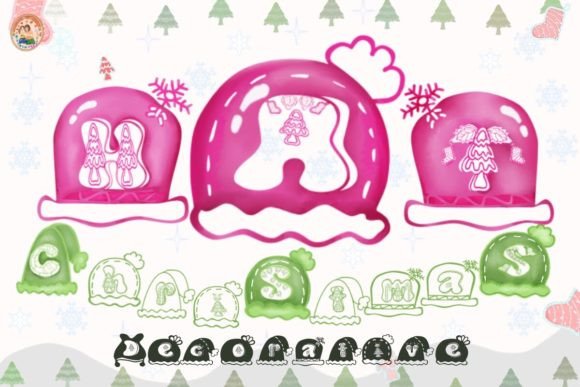
Embark on a magical journey with the Hat Christmas Font, a delightful decorative font family that captures the whimsical charm of the holiday season. Fall in love with its two captivating styles, each a stroke of artistry that brings your creative visions to life.
Immerse yourself in the vibrant world of Hat Christmas, where imagination knows no bounds. Let your creativity soar as you design enchanting invitations that radiate warmth and cheer. Picture the joy on your loved ones' faces as they receive these personalized tokens of affection. The Hat Christmas Font transforms ordinary words into captivating expressions, adding a touch of magic to every occasion.
Unleash your inner artist and craft heartfelt stationary art that speaks to the heart. The fluid lines and playful characters of the Hat Christmas Font dance across the page, creating masterpieces that evoke emotions and leave lasting impressions. Imagine your loved ones' eyes sparkling with delight as they admire your handmade cards and letters, each one a testament to your creativity and thoughtfulness.
Step into the realm of social media and captivate your audience with eye-catching posts that demand attention. Harness the power of the Hat Christmas Font to create captivating graphics, memes, and quotes that resonate with your followers. Watch as your engagement skyrockets and your social media presence flourishes. The Hat Christmas Font is your secret weapon for leaving an indelible mark on the digital world.
Discover the joy of crafting personalized greeting cards that warm hearts and spread happiness. The Hat Christmas Font's playful characters bring a smile to the face of anyone who beholds them. Create cards that celebrate life's special moments, from birthdays and anniversaries to holidays and milestones. With the Hat Christmas Font, your cards will stand out from the crowd, leaving a lasting impression on your recipients.
Let the Hat Christmas Font ignite your creativity and transform your artistic endeavors into extraordinary works of art. Whether you're designing invitations, stationary, social media posts, or greeting cards, this enchanting font family is your gateway to a world of endless possibilities. Embrace the magic of the Hat Christmas Font and watch as your creative dreams take flight.